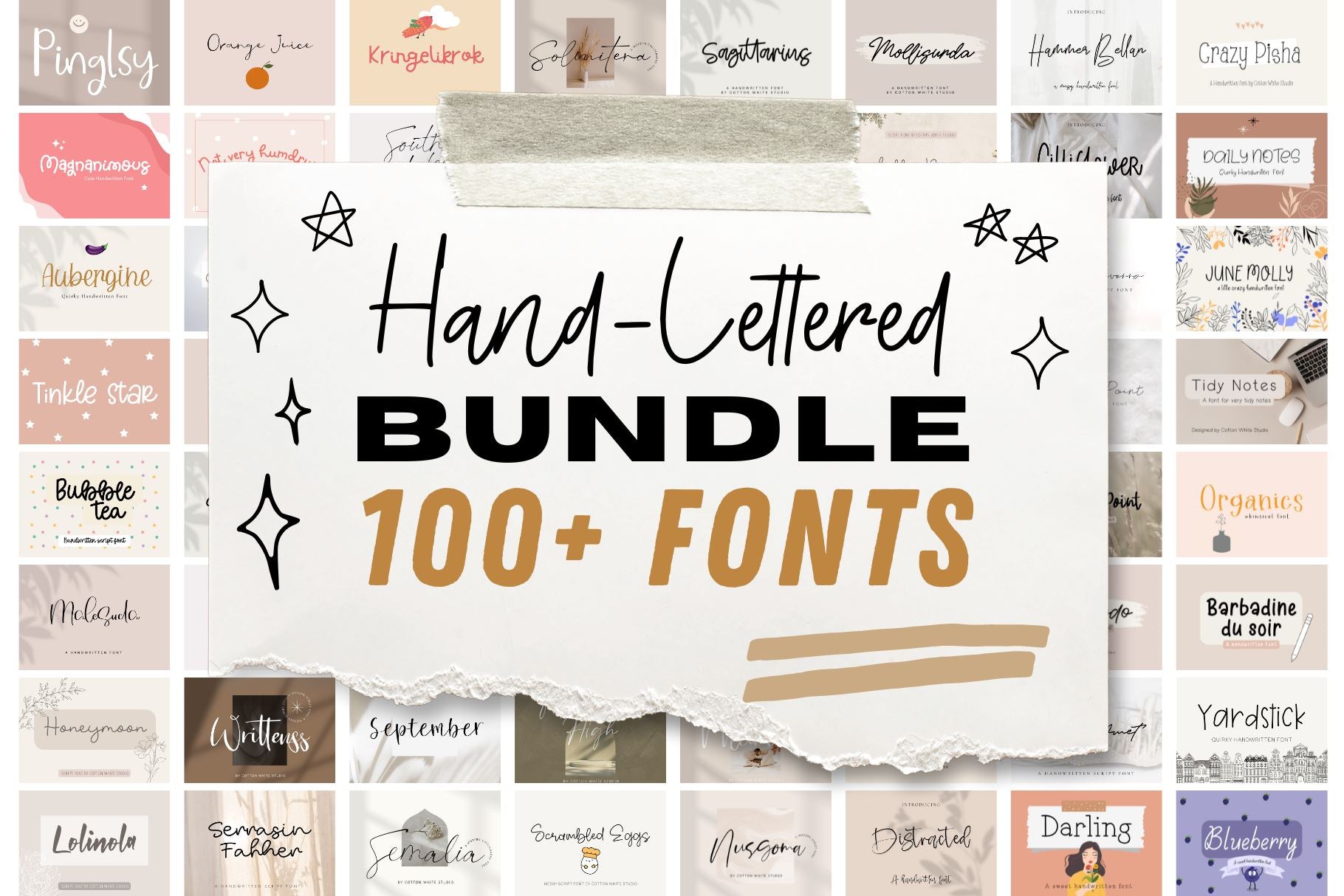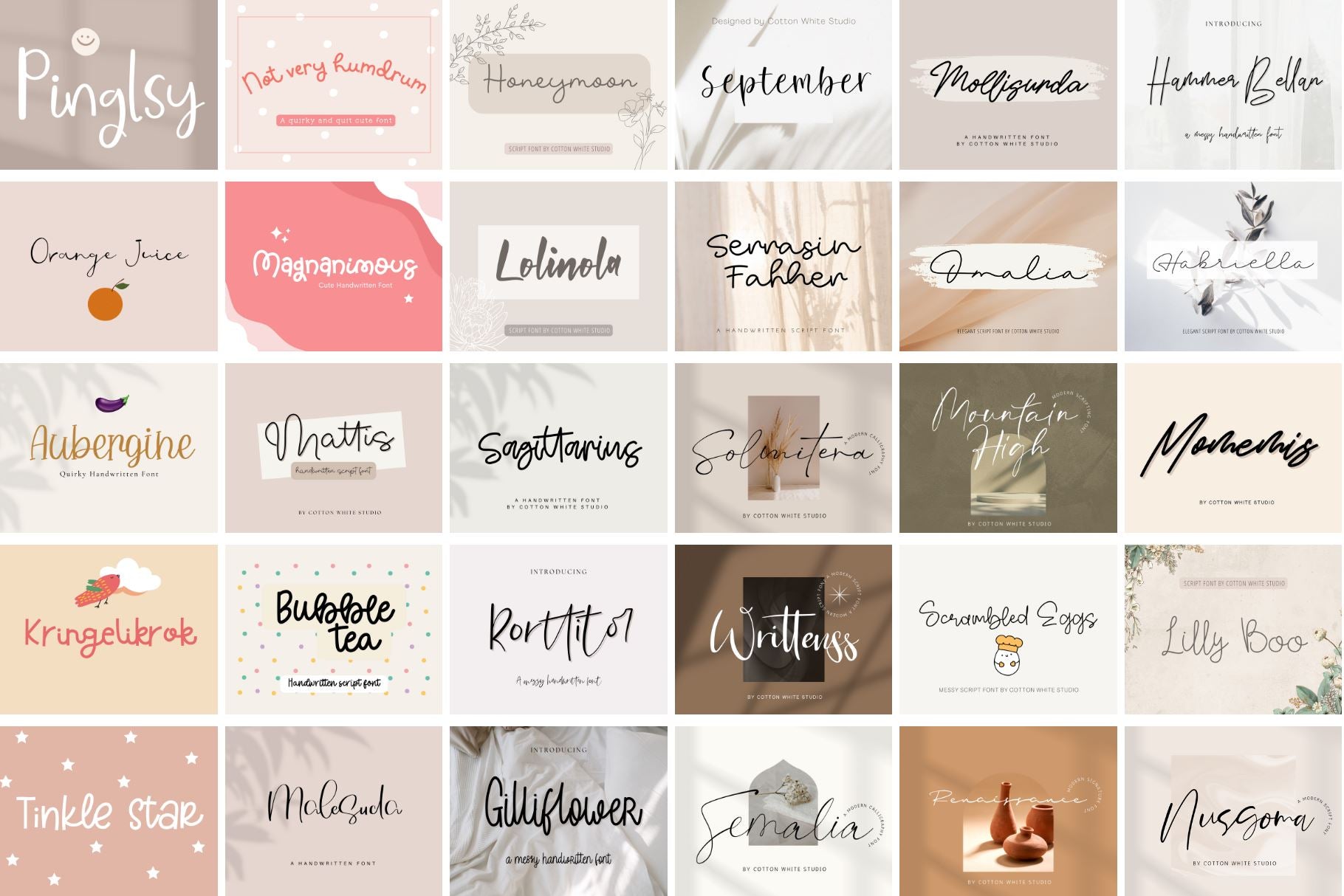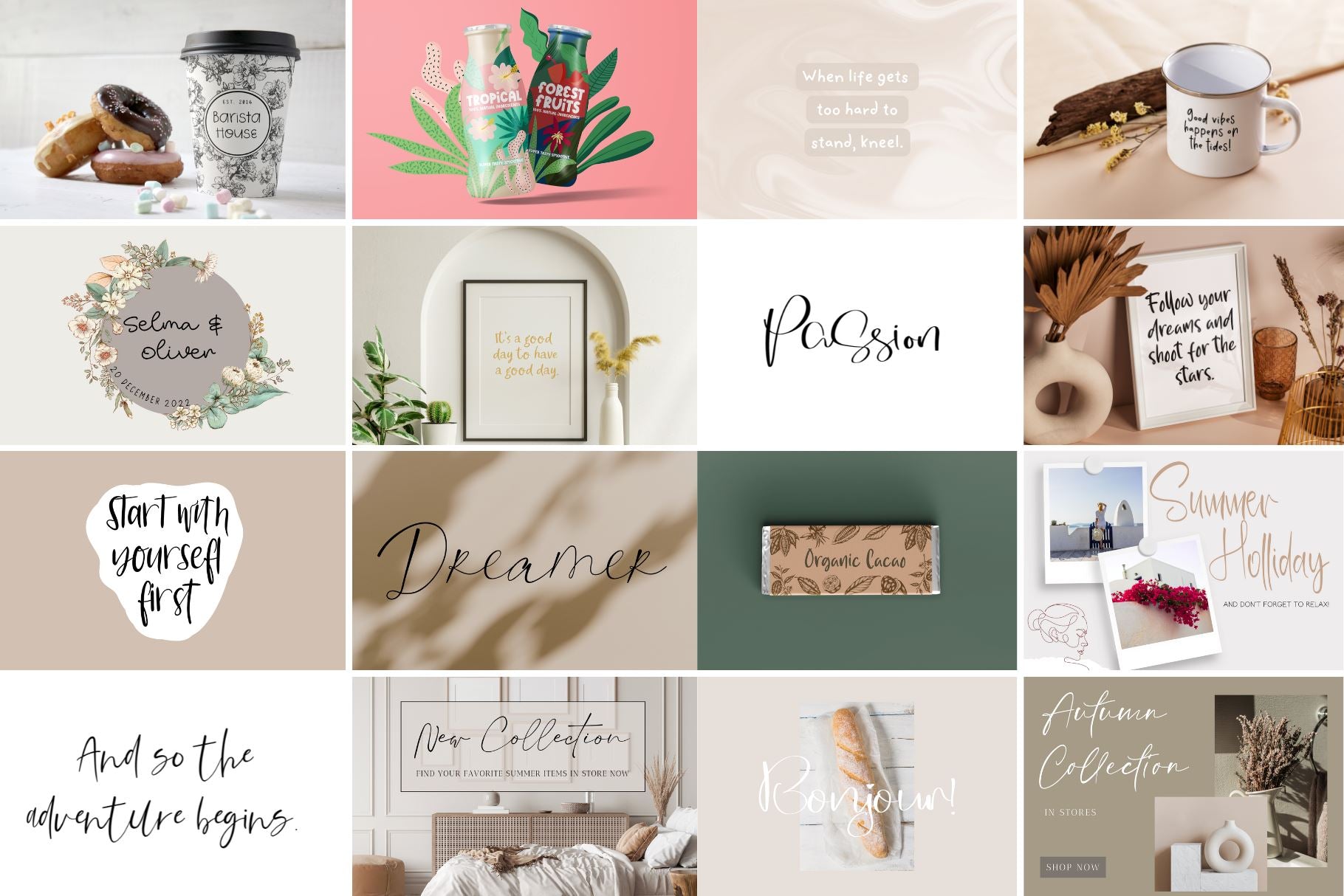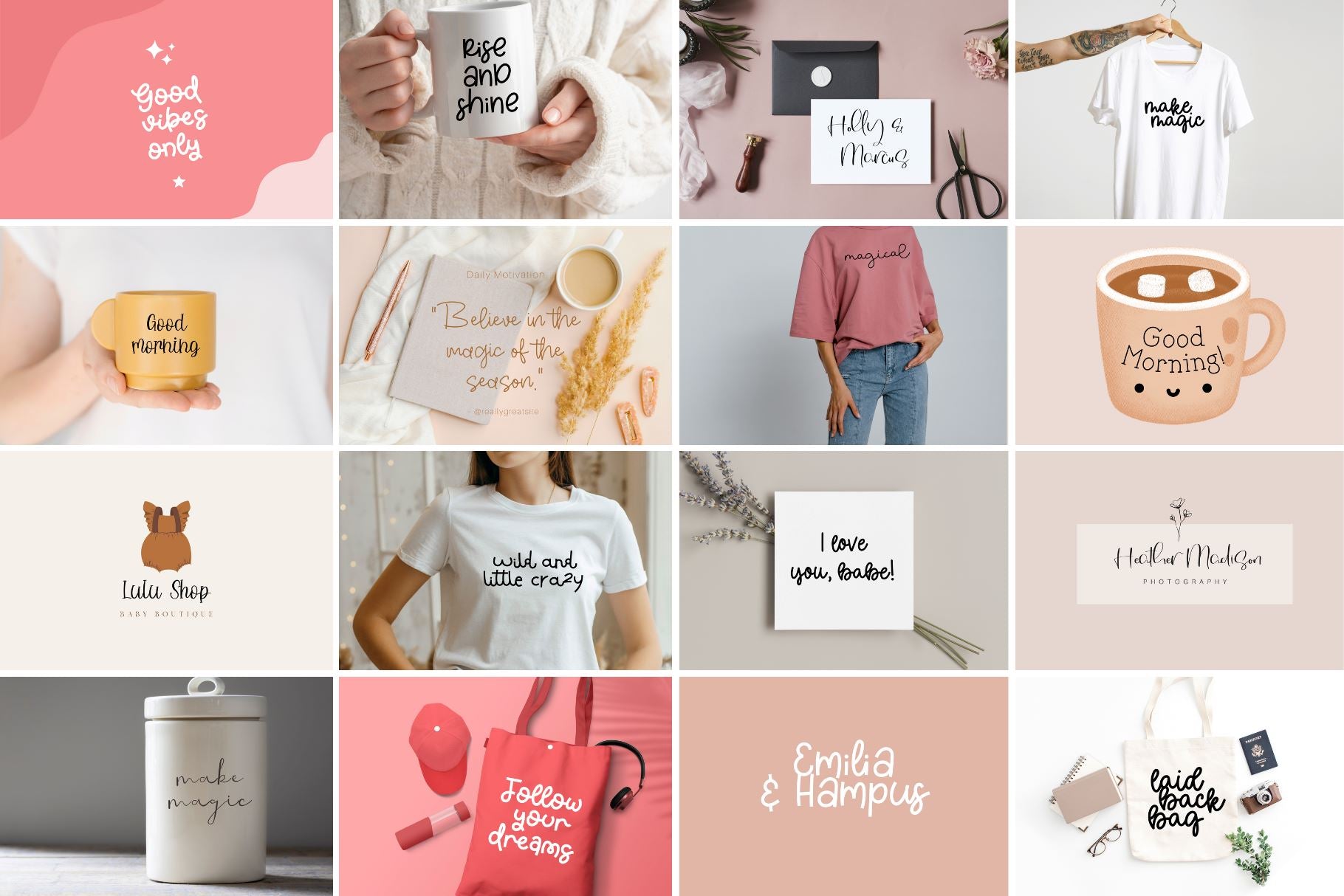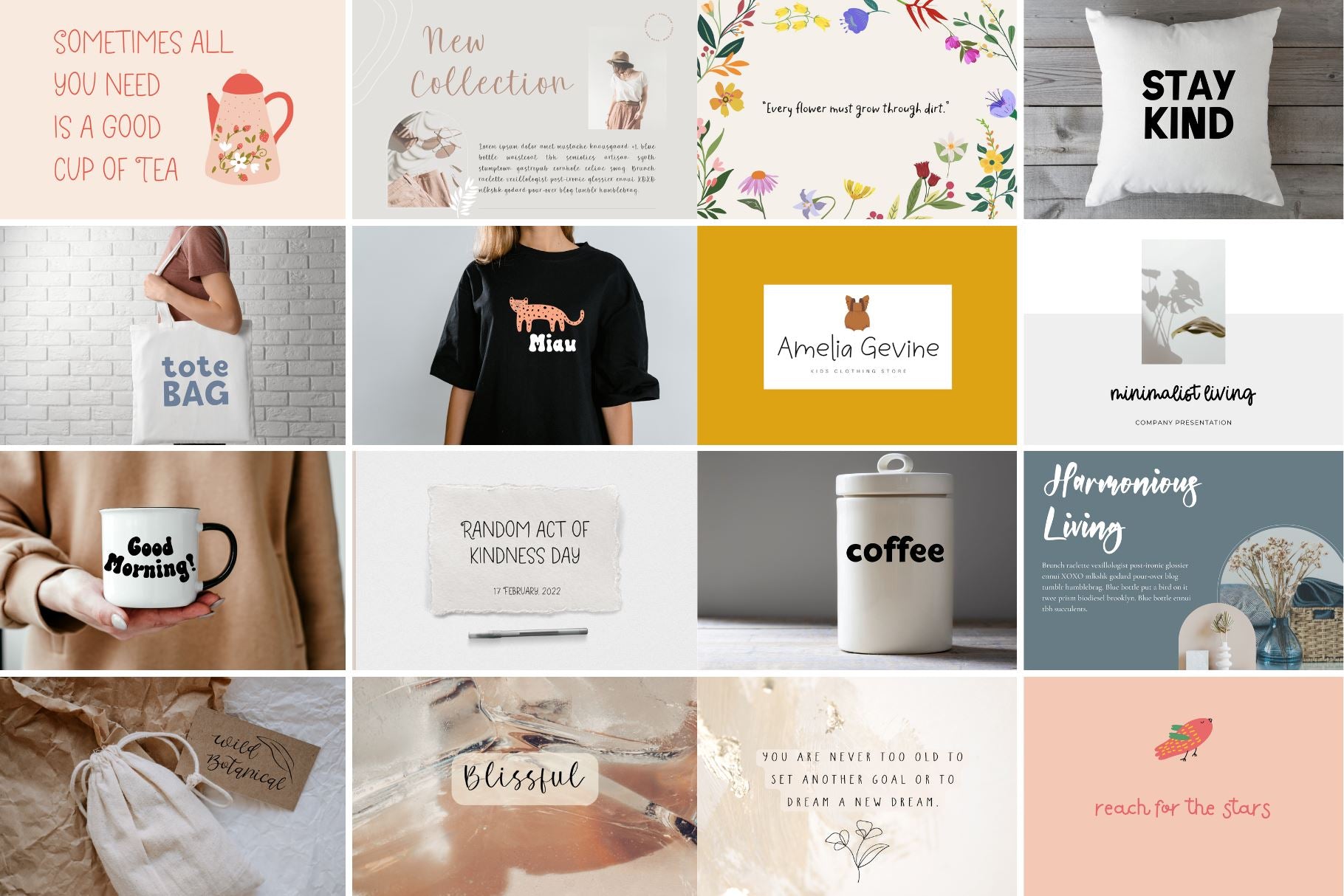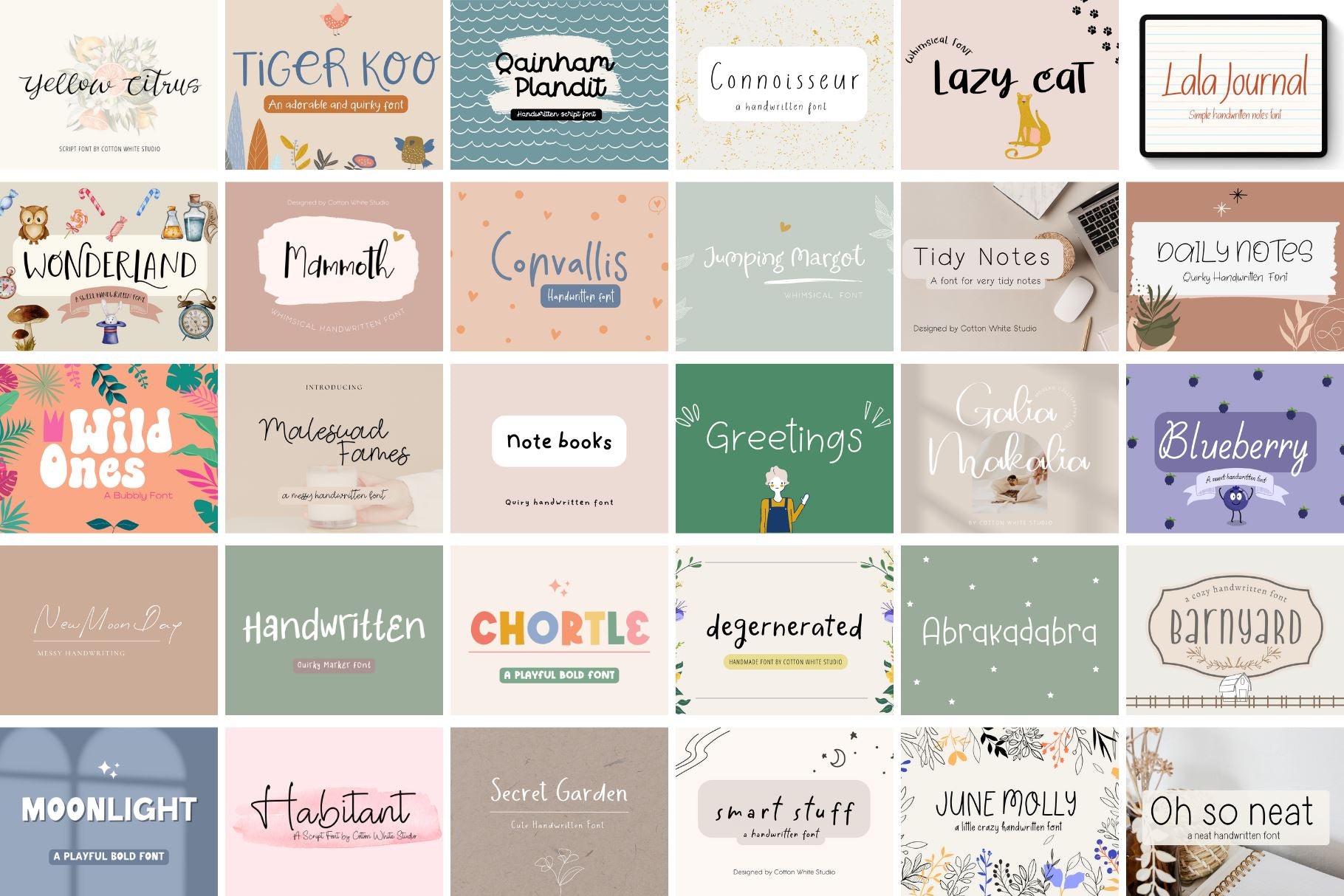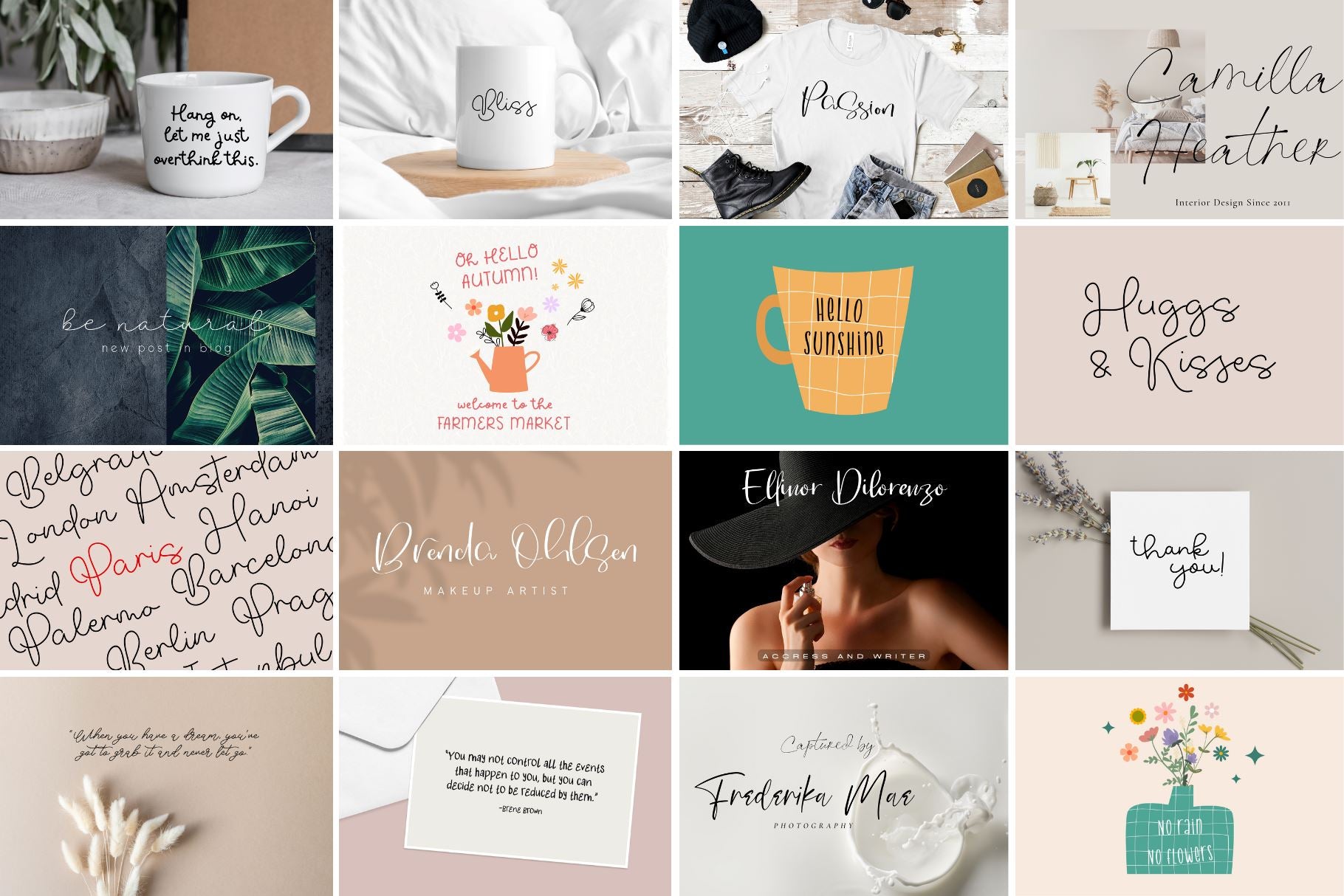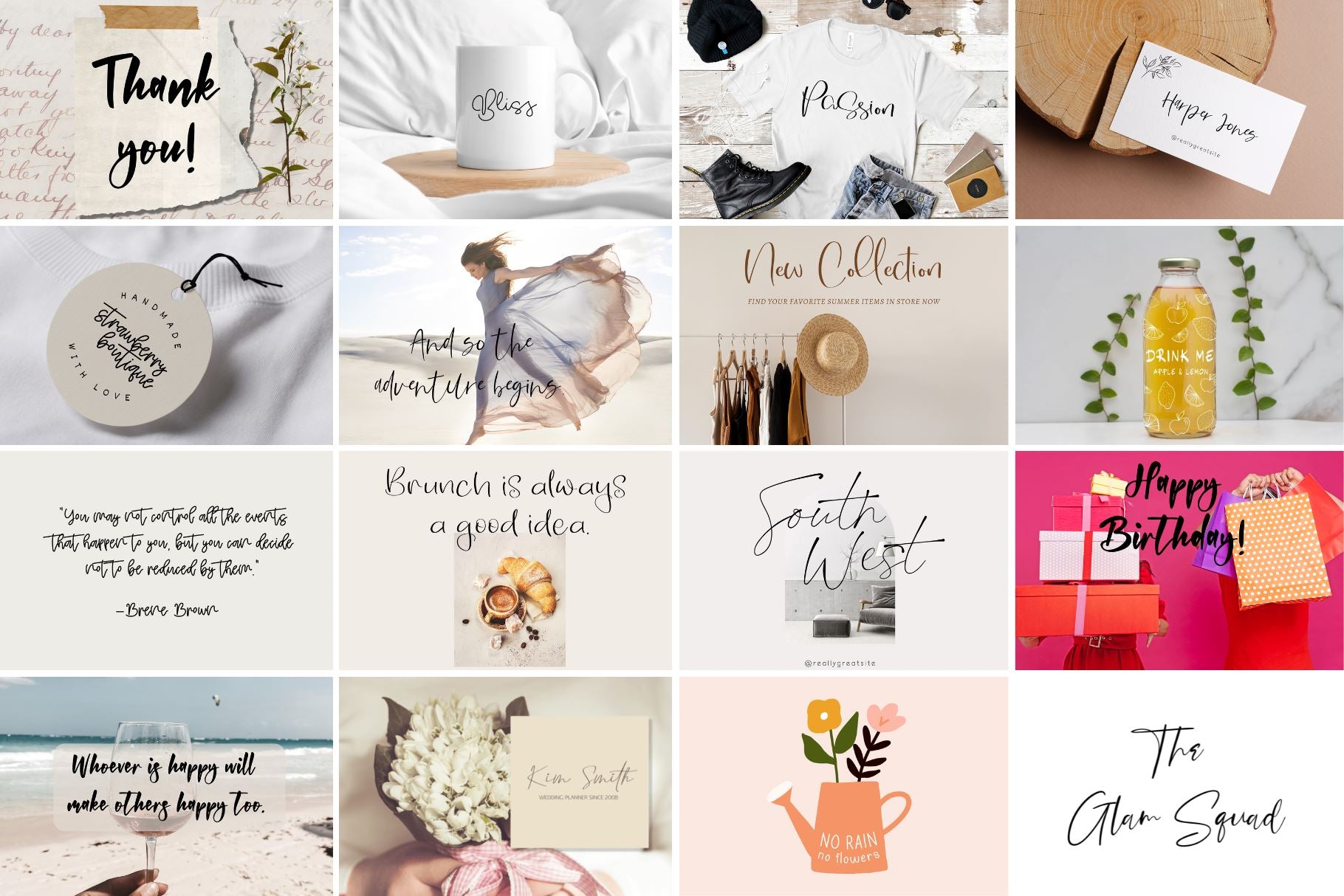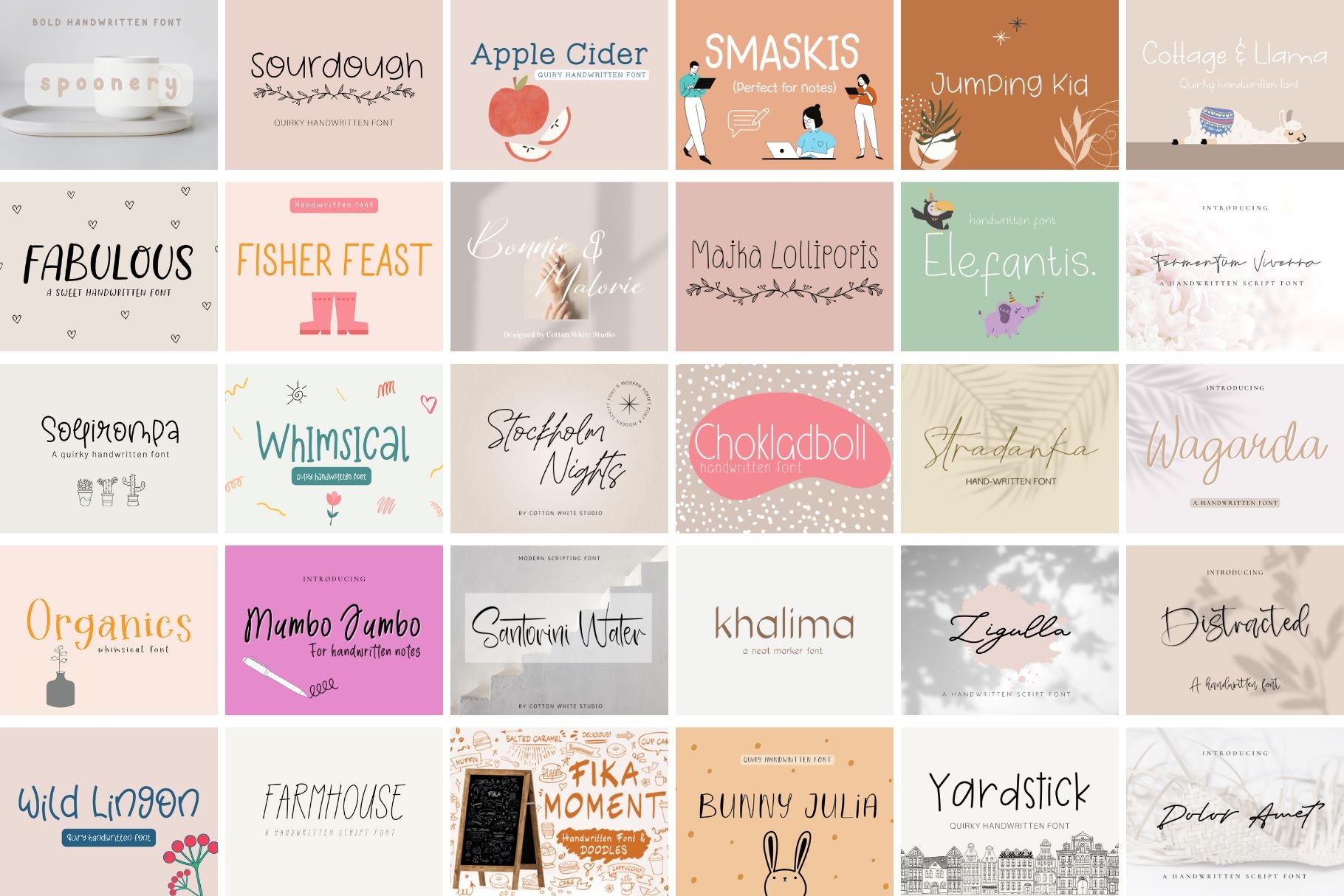
Hand-Lettered Bundle 100+ Fonts Included
About Hand-Lettered Bundle 100+ Fonts Included
Introducing the ultimate handwritten font bundle! With a mix of scripted, cursive, quirky, neat, and messy fonts, this bundle has something for every design project. Add a unique touch to your branding materials, invitations, social media posts, digital notes and more with these beautifully crafted fonts. The handwritten style gives a warm and authentic feel to your designs, making them stand out from the rest. In this bundle, you’ll get access to over 100 unique fonts that are sure to make your projects shine. The versatility of these fonts means you can use them for a wide range of applications. With a range of options to choose from, you’ll be able to find the perfect font to match your style and mood. The Handwritten Font Bundle is a great deal, with a price that’s lower than purchasing each font individually. Get your bundle today and start making your words stand out! Don’t miss out on this amazing deal – get the handwritten font bundle today and add a touch of personality to your designs!😍 All fonts in OTF, TTF Uppercase Letters Lowercase Letters Numbers & Punctuation Characters: a b c d e f g h i j k l m n o p q r s t u v w x y z A B C D E F G H I J K L M N O P Q R S T U V W X Y Z 0 1 2 3 4 5 6 7 8 9 . , : ; ! ? ‘ \” ‘ ’ “ ” @ _ & # % * + – × ÷ = ~ < > / ( ) { } [ ] $ ¢ € £ ¥ © ® ™